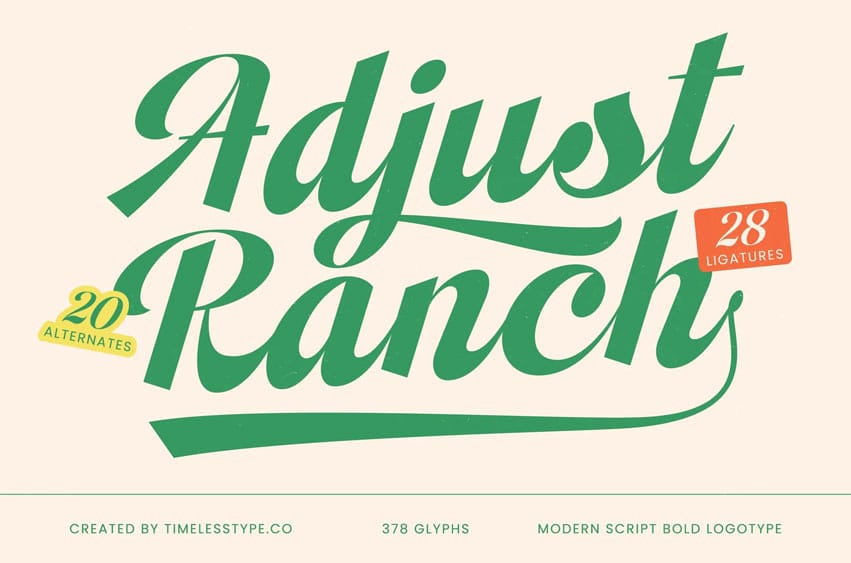
Adjust Ranch Font is a Modern Script Bold Logotype Font crafted with smooth curves, confident strokes, and a clean handcrafted flow. Perfect for branding that needs personality and movement, this font brings a fresh retro–modern feel suitable for logos, packaging, headlines, social media graphics, and expressive display typography.
With 28 ligatures and 20 alternates, Adjust Ranch gives designers the flexibility to build dynamic custom lettering with natural connections and energetic rhythm. Whether you’re designing for lifestyle brands, food products, signage, or vintage-inspired visuals, this script delivers bold charm with effortless style.